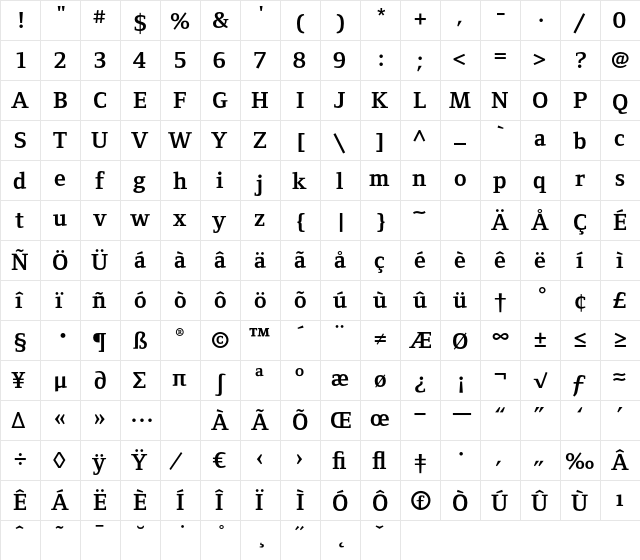
FoundryFormSerif Bold
Design Context for FoundryFormSerif Typeface
FoundryFormSerif brings classic typographic sensibility to the table — its serifs and measured letterforms reflect centuries of print heritage. The heavy weight commands attention and anchors typographic hierarchies.
Pro Tip: Use FoundryFormSerif for editorial body copy and considered headline work. Pair with a neutral sans for UI elements or captions to create a classic hierarchy.